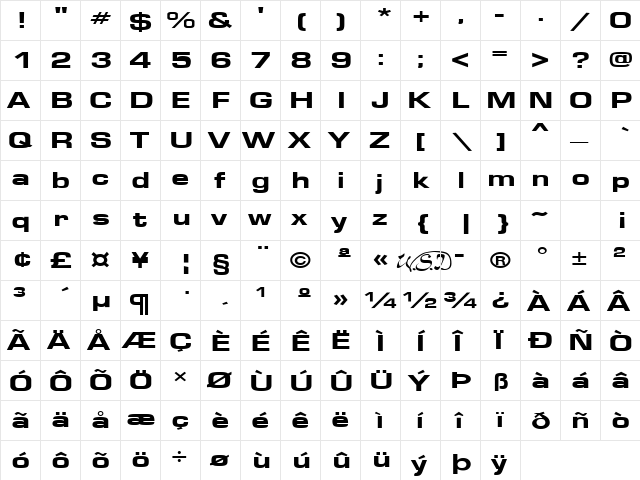
EuroseWide Heavy Regular
Design Context for EuroseWide Heavy Typeface
EuroseWide Heavy is a composed and adaptable typeface that performs quietly and consistently across a wide range of design contexts.